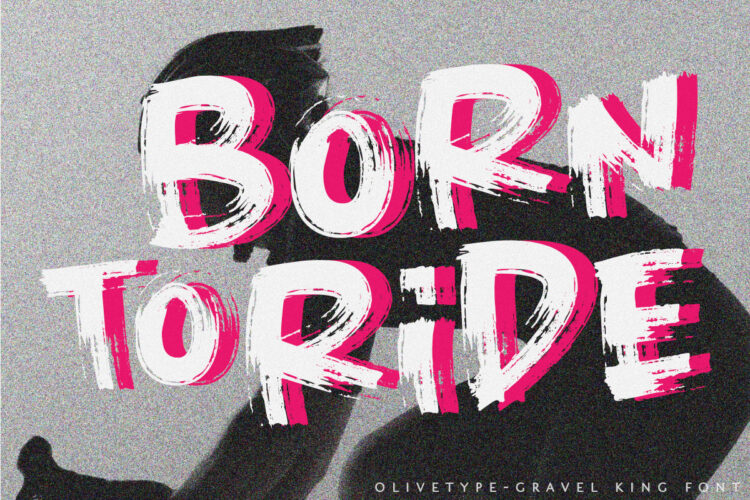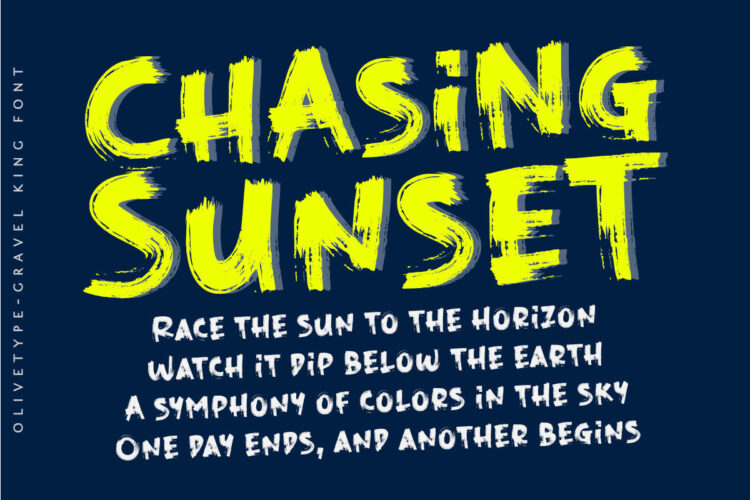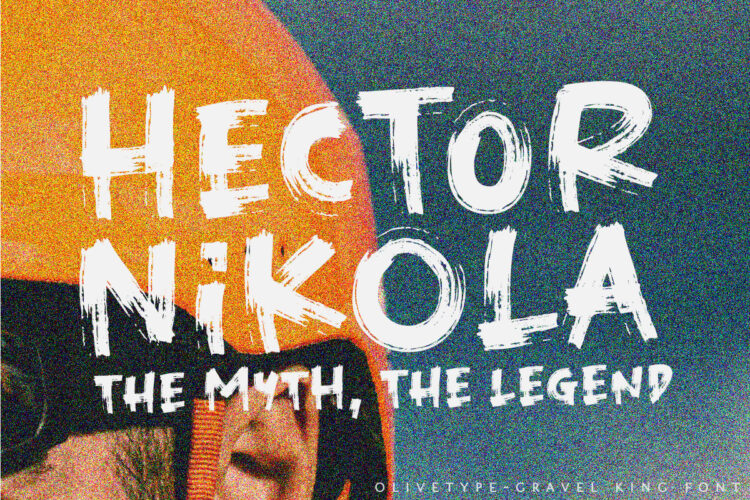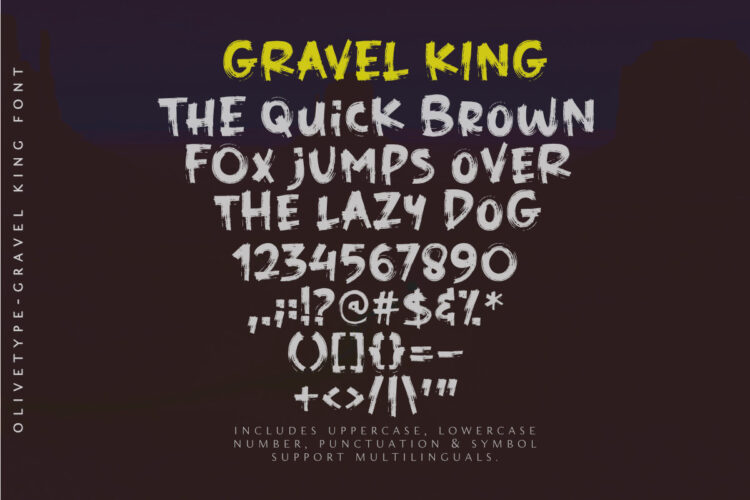
Gravel Ink is the perfect font for rough and tough designs. It has a cool, edgy look that is perfect for logos, headlines, and other creative projects. Gravel Ink is also very fun to use – its brush-style letters are great for creating unique designs that stand out. So if you’re looking for a tough, gritty, stylish font that’s also a lot of fun to work with, Gravel Ink is a perfect choice!
- Basic Latin Uppercase and Lowercase
- Supports more than 66 languages.